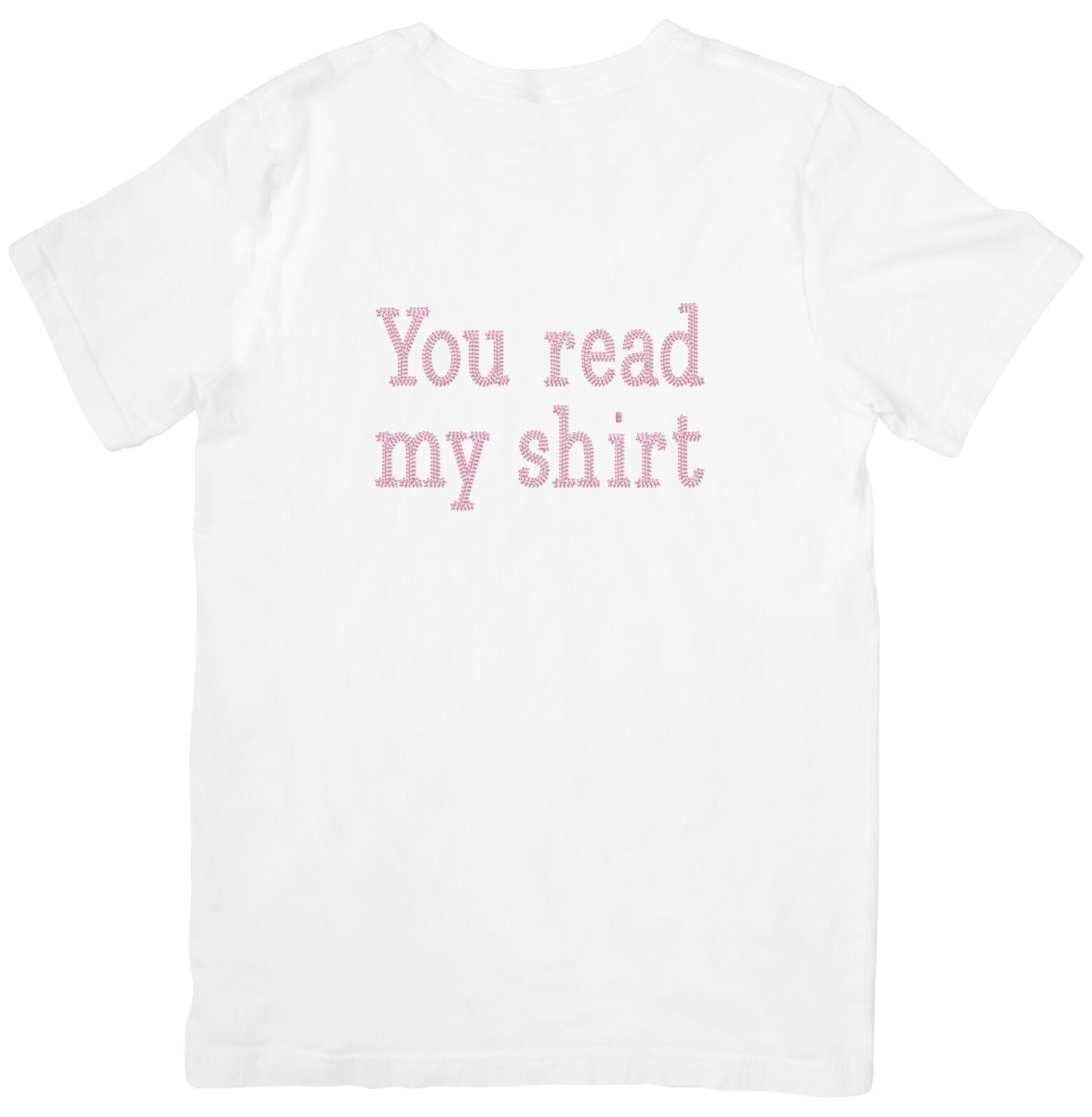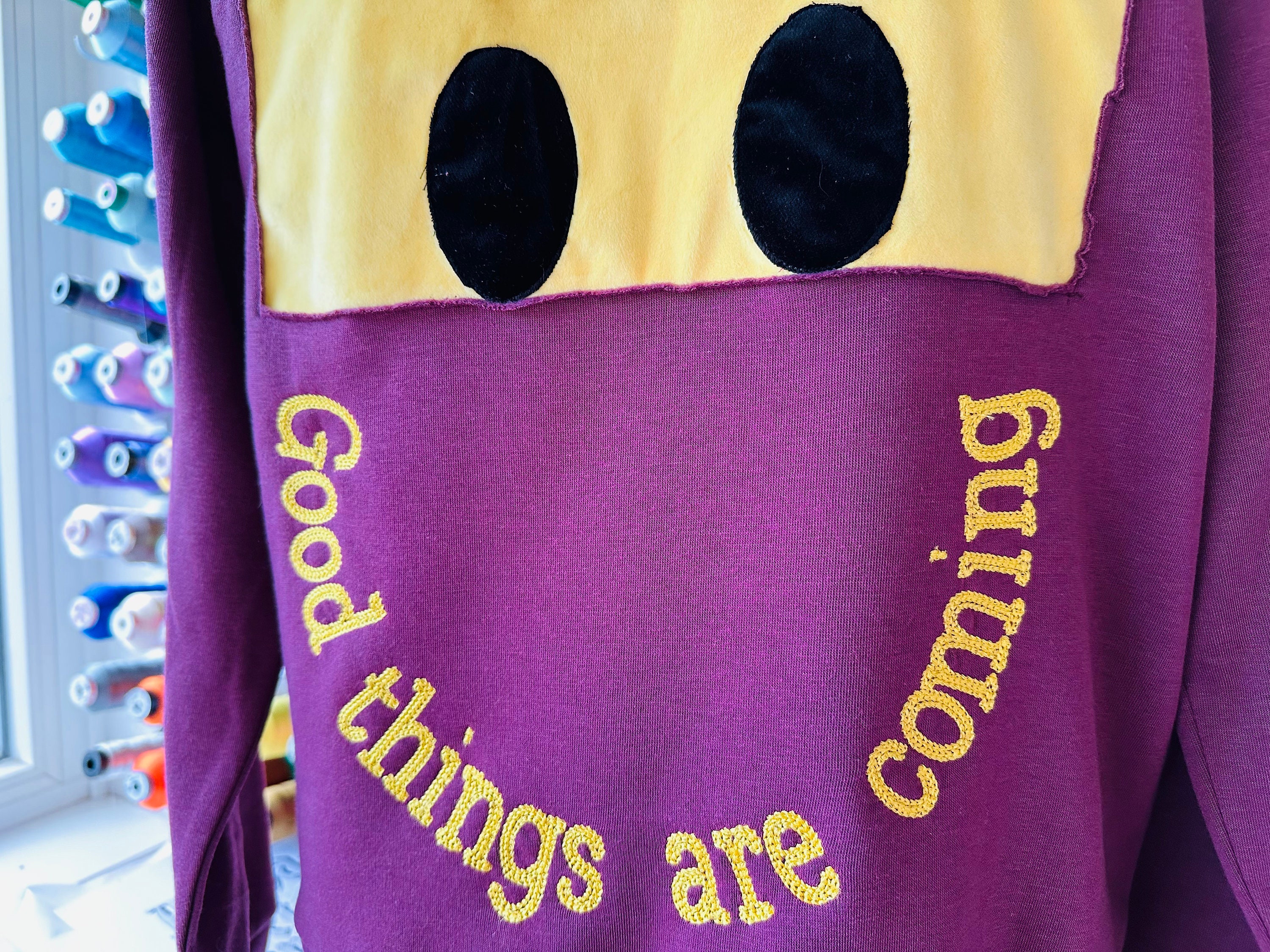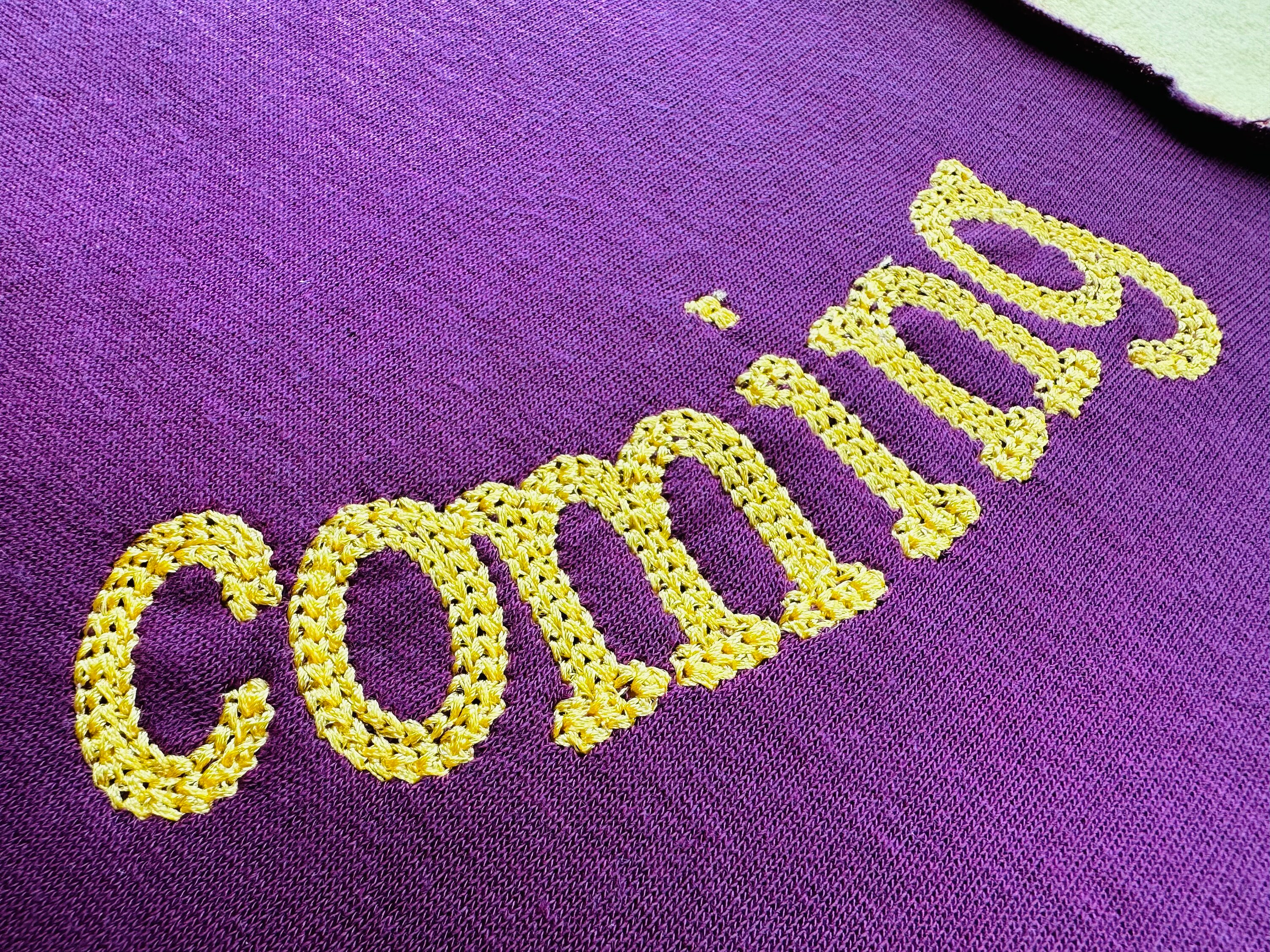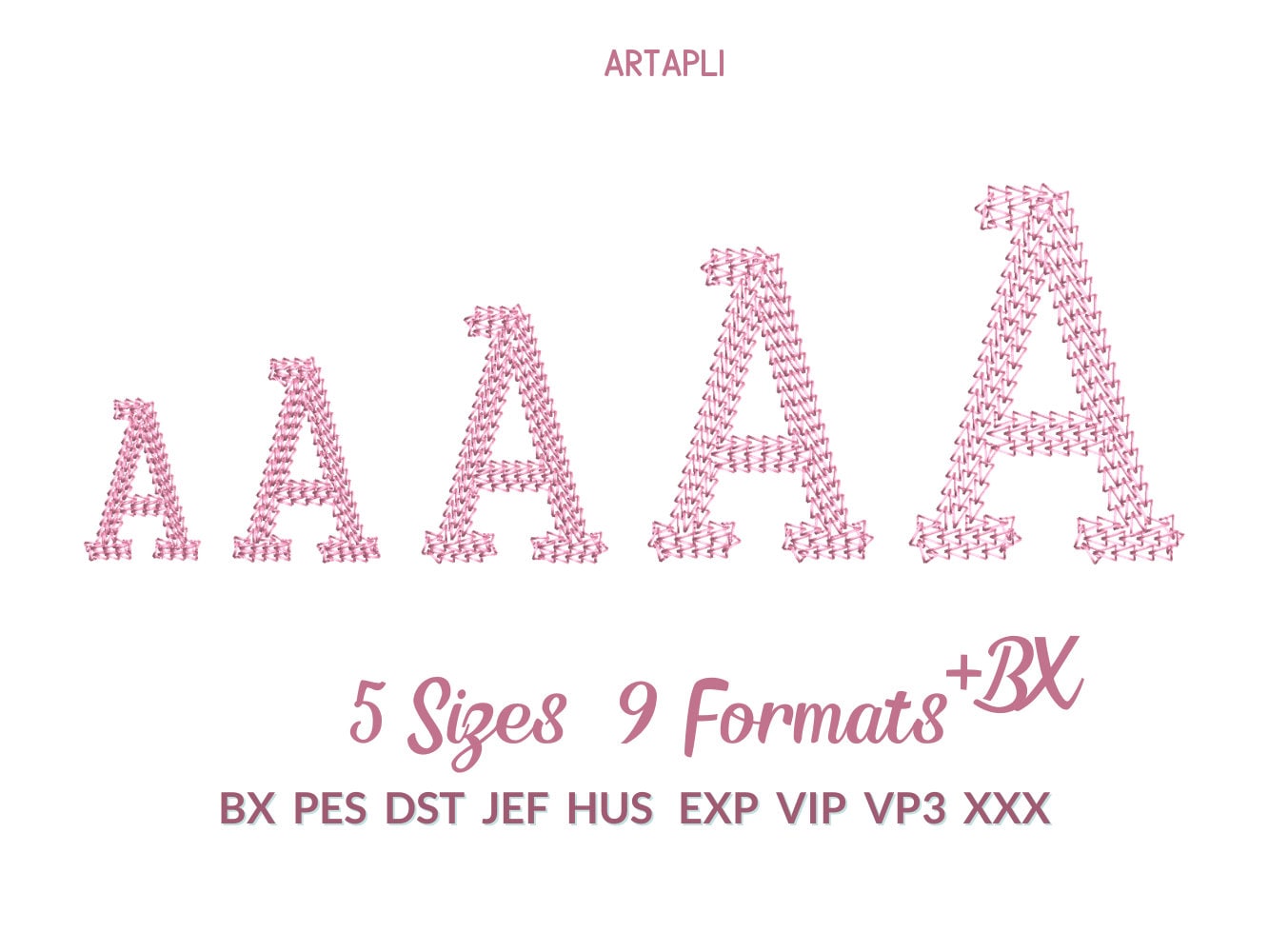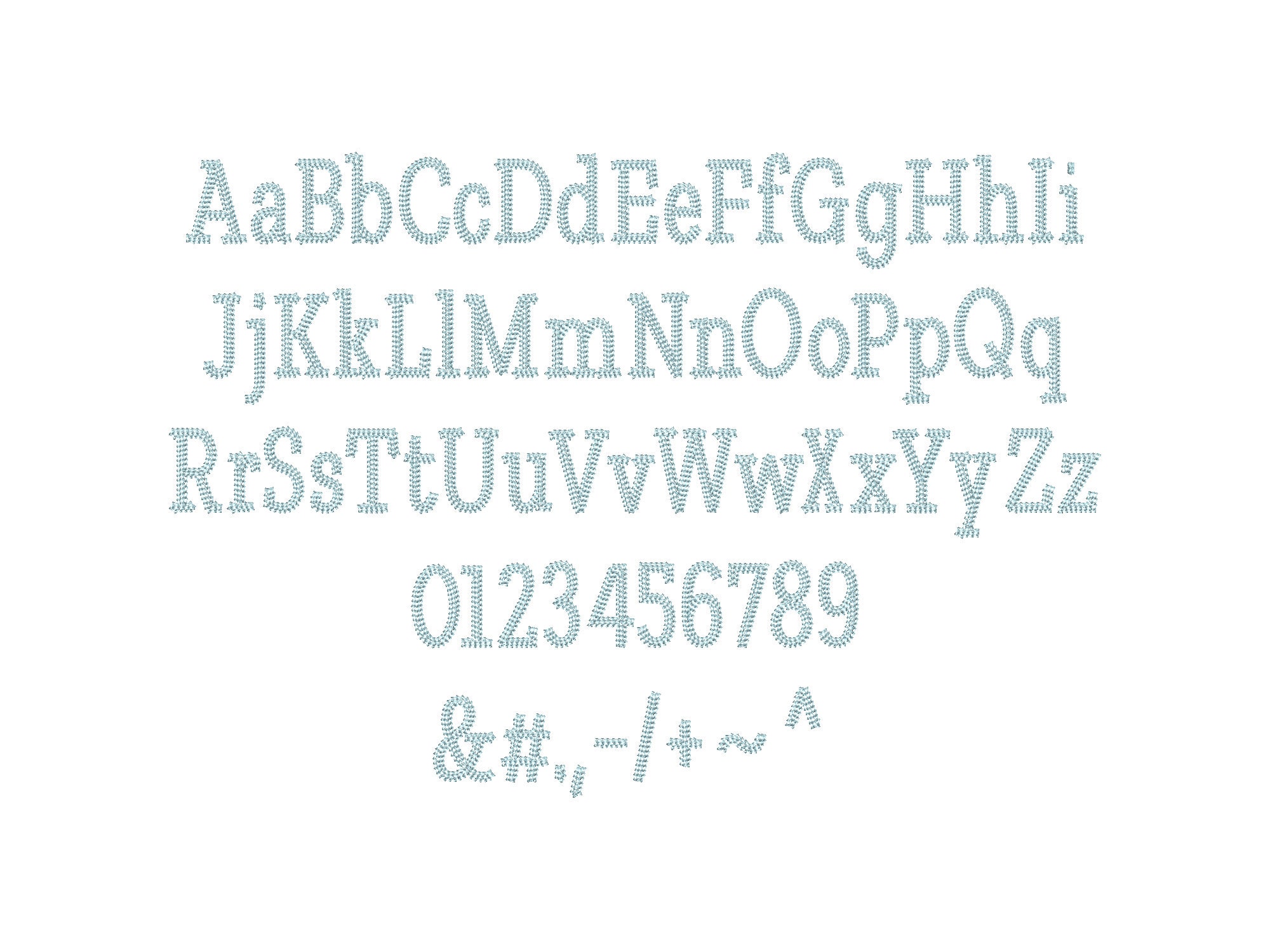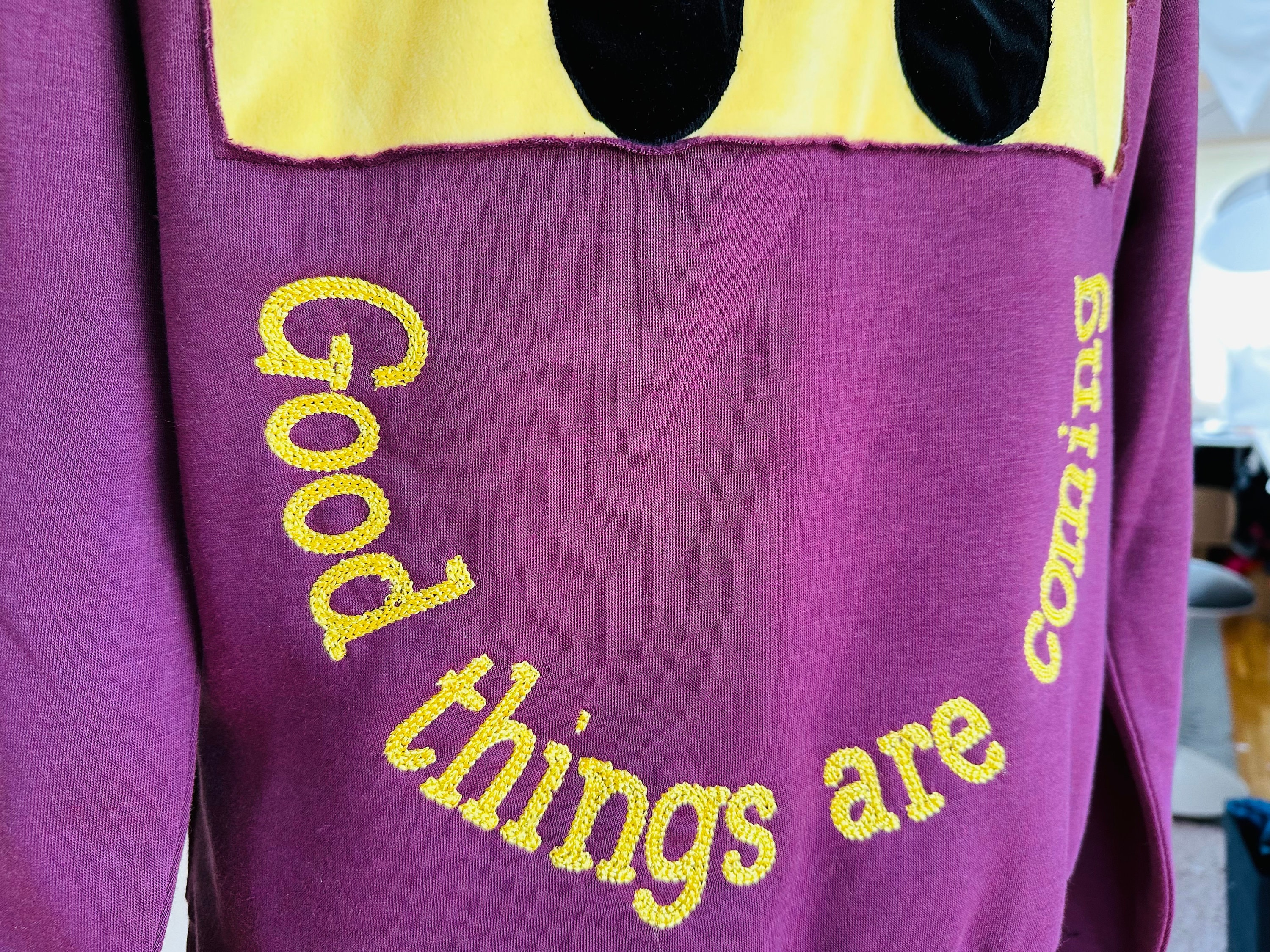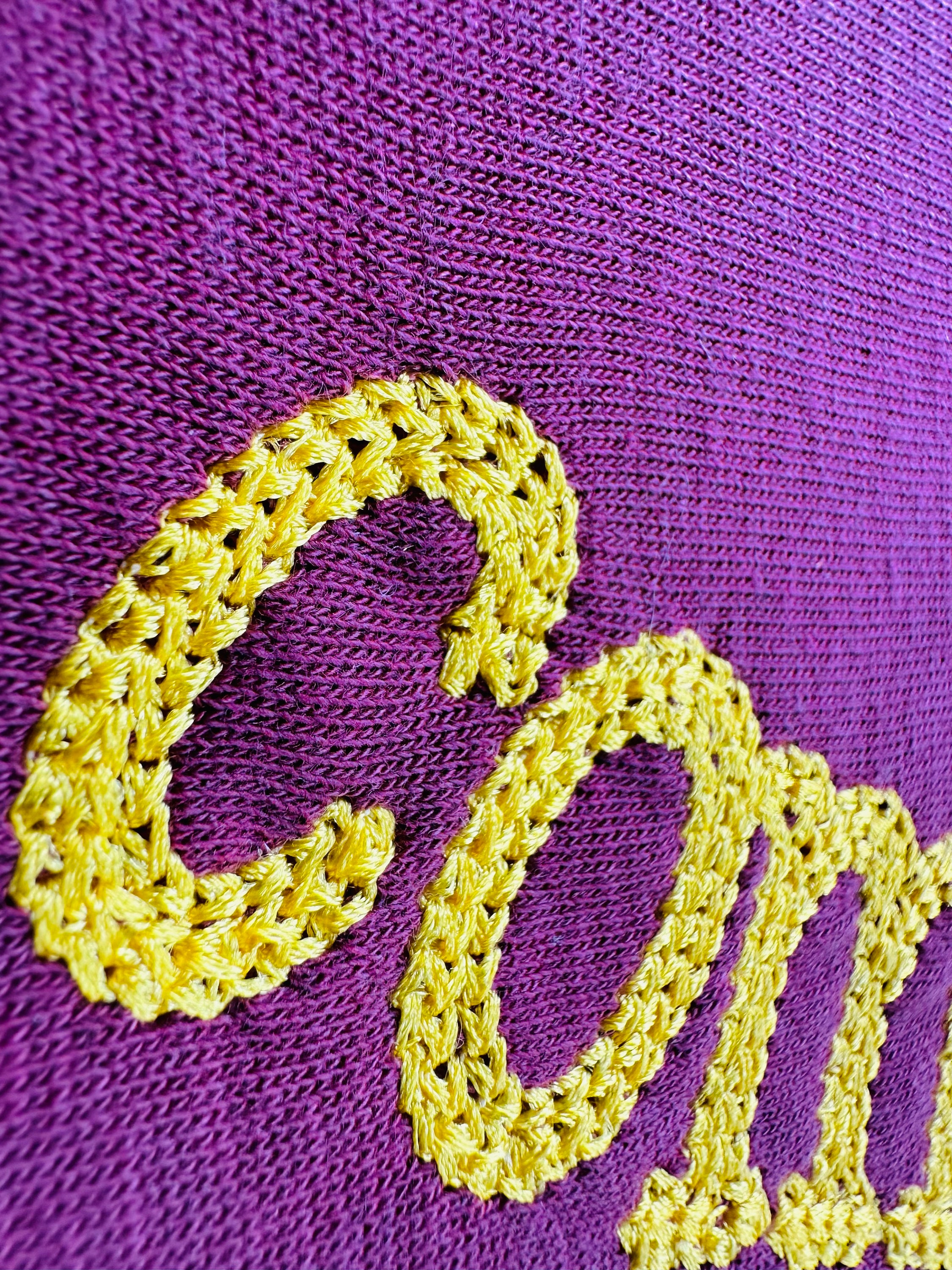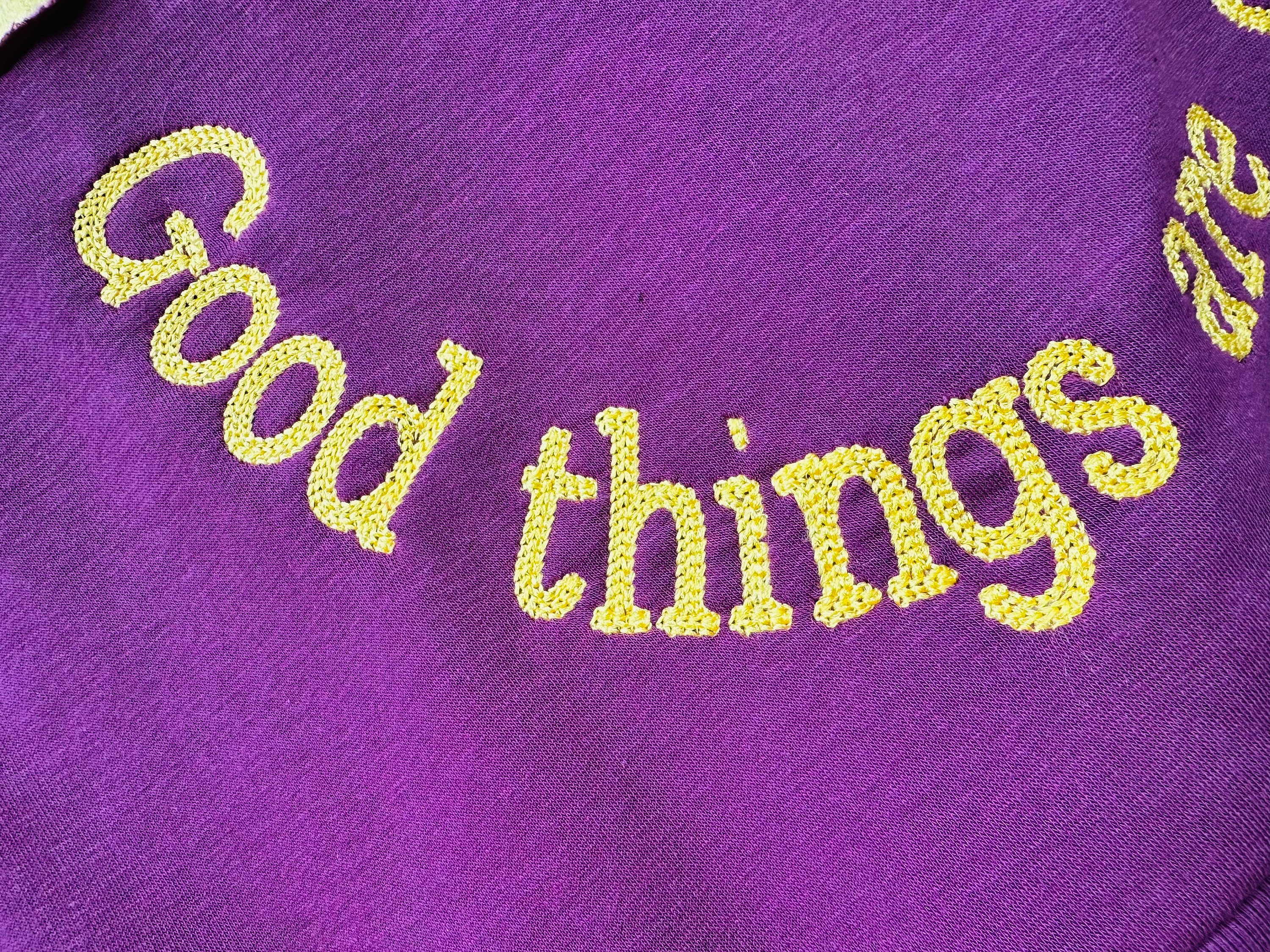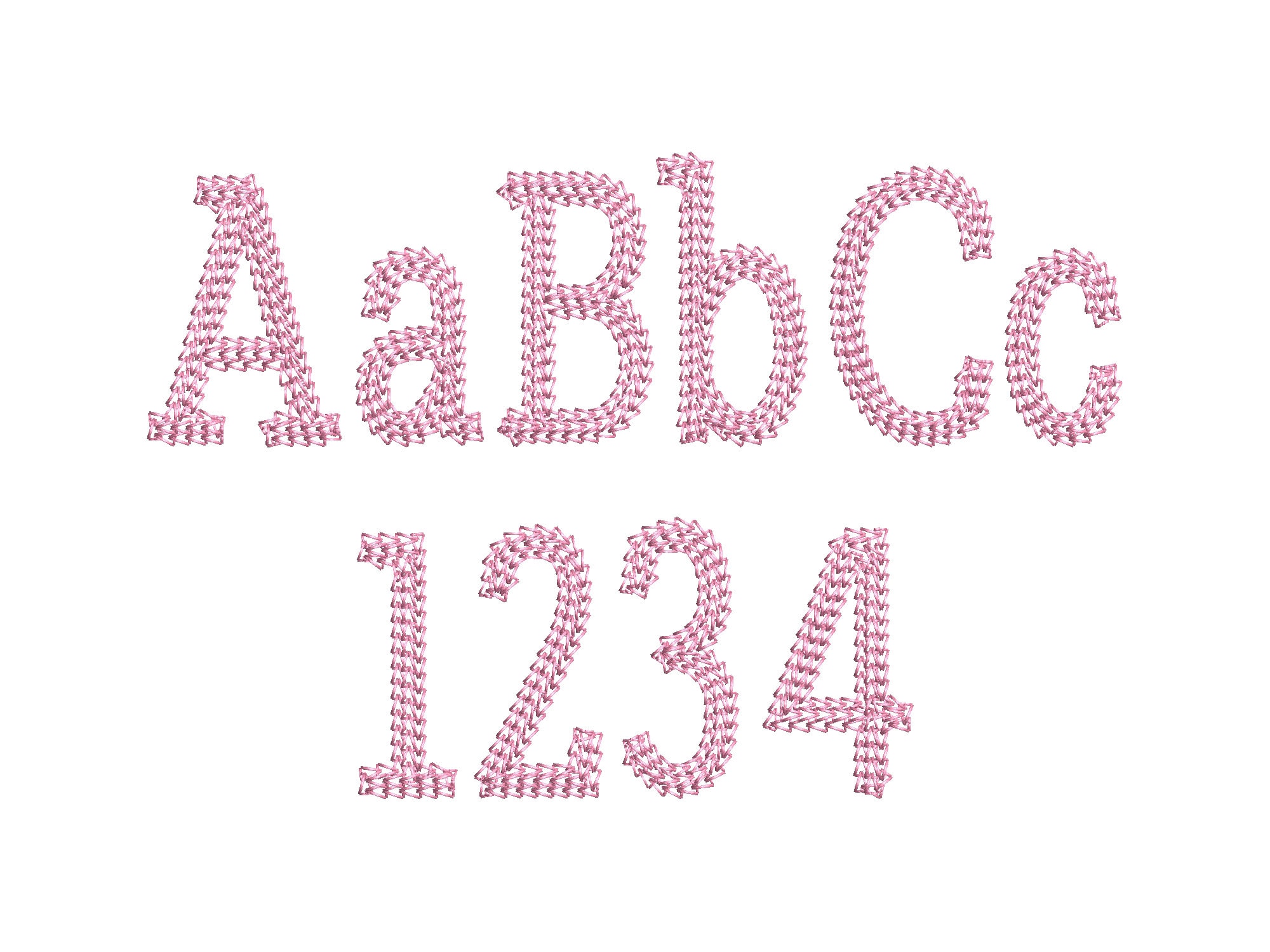
Chain stitch Block FONT chained font alphabet monogram machine embroidery designs knit sweater letters sport wear hand stitch effect BX
Entire alphabet, uppercase and lowercase letters, numbers, and punctuation.
Chain Stitch Block Font Alphabet Monogram Machine Embroidery Designs. This set features a chained font style that mimics traditional hand stitching, perfect for adding a personal touch to knit sweaters and sportswear. Each letter boasts a robust block font, creating a standout visual appeal reminiscent of manual handstitching. Ideal for monograms and personalized designs, this collection also includes BX format for effortless application. Elevate your embroidery with this sophisticated, sporty font that blends old-world charm with modern technique.